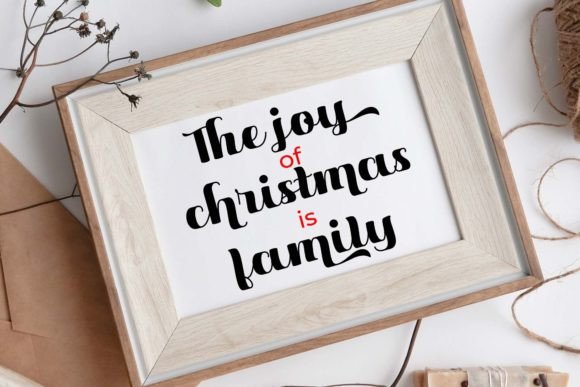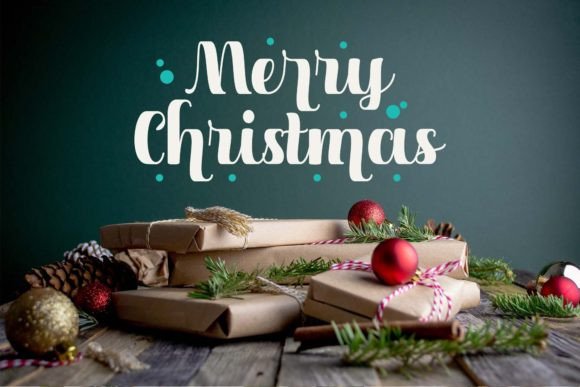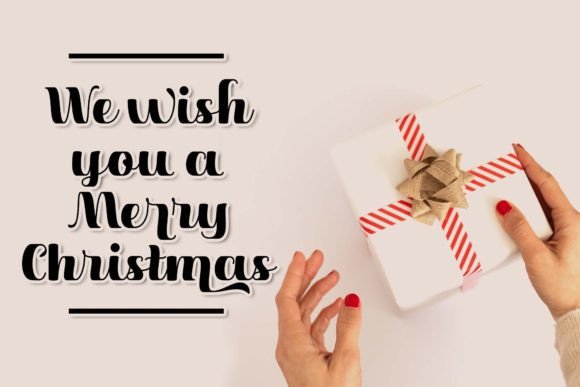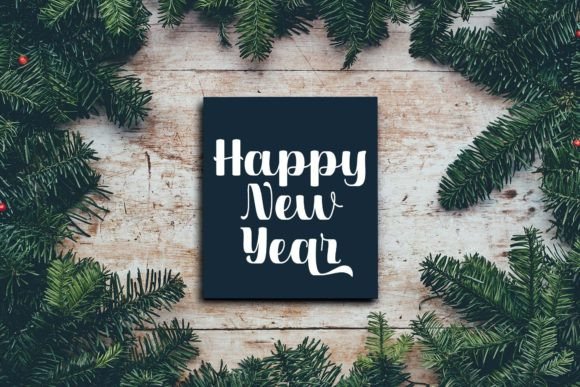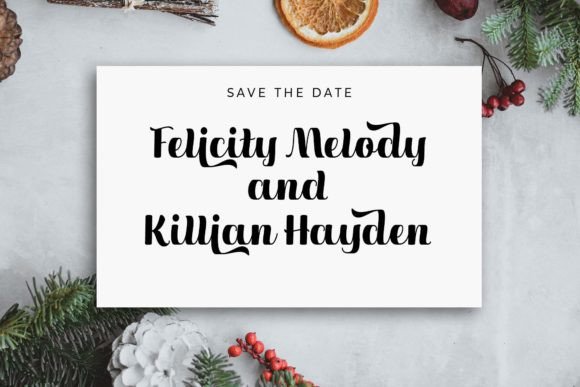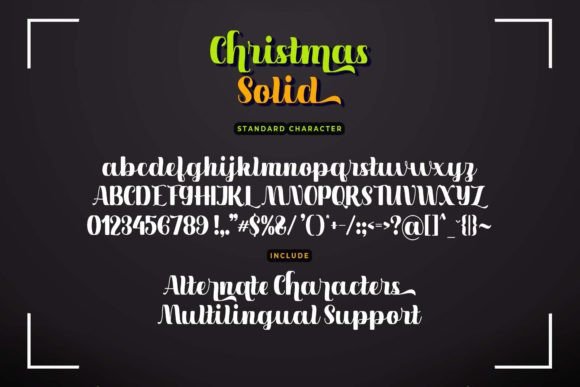
Introduction to Christmas Solid Font
Christmas Solid is a festive and merry typeface that captures the spirit of the Christmas season.
Key Features of Christmas Solid Font
Why Choose Christmas Solid Font?
Christmas Solid Font offers exceptional quality and versatility, making it a valuable addition to your design toolkit. Whether you’re creating for personal projects or commercial use, Christmas Solid Font delivers professional results.